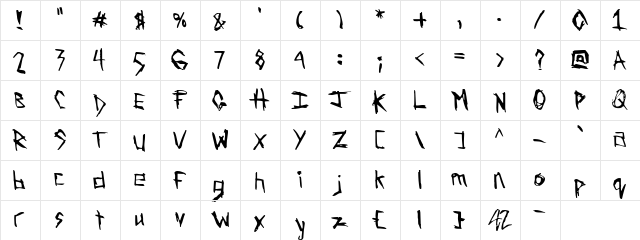
FSO obliterate Regular
Design Context for FSO obliterate Typeface
FSO obliterate is a composed and adaptable typeface that performs quietly and consistently across a wide range of design contexts.